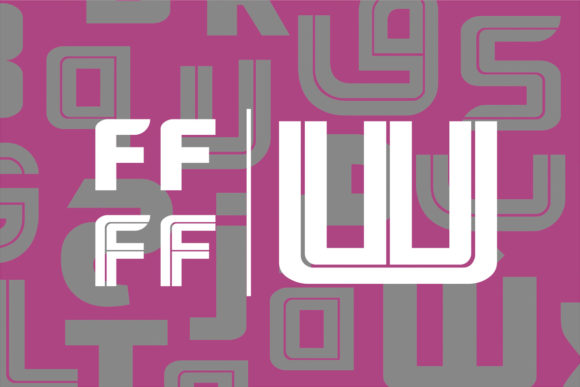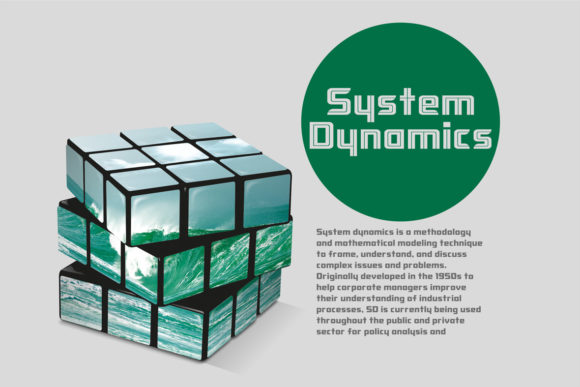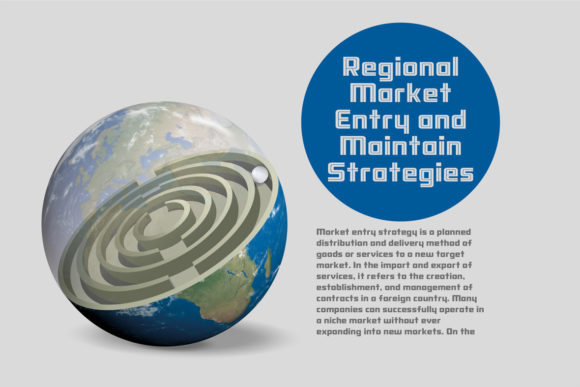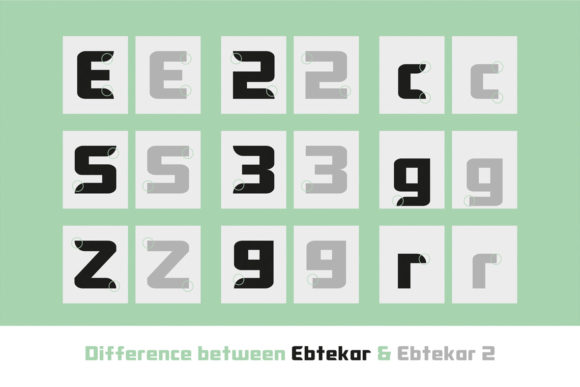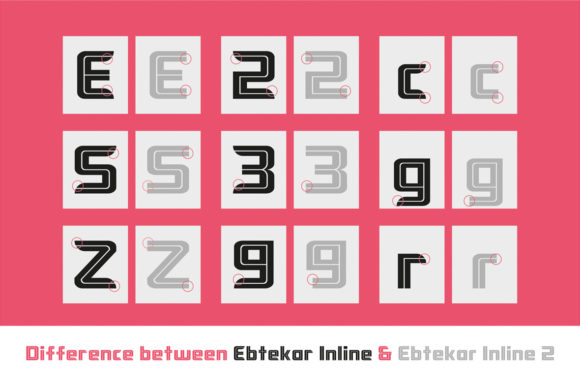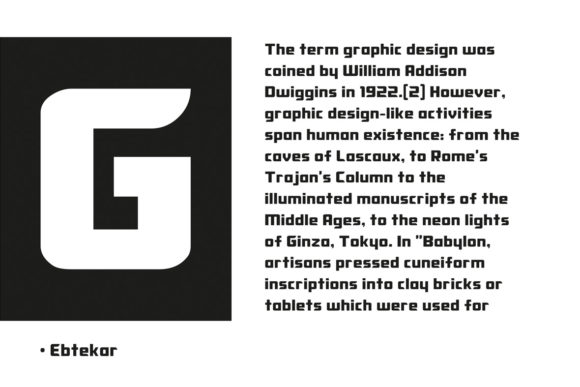
Introducing Ebtekar Family Font: A Stylish and Clean Display Font
Are you looking for a font that can add a touch of modernity and sophistication to your design projects? Look no further than the Ebtekar Family Font. This stylish and clean display font family is perfect for designers and crafters who want to create visually stunning text-based designs. In this article, we’ll take a closer look at the Ebtekar Family Font, its features, and how it can elevate your design game.
What is Ebtekar Family Font?
Ebtekar is a really stylish and clean display font family that boasts geometric structures, creating a minimal, futuristic, and industrial atmosphere. The font family consists of two different styles: Normal and Inline, giving you flexibility and versatility in your design projects. The Latin part of the font also offers two different types for each style, with some practical changes that make it even more useful.
Key Features of Ebtekar Family Font
- Geometric Structures: The Ebtekar Family Font features geometric structures that give it a modern and industrial look. The clean lines and minimalist approach make it perfect for designs that require a sleek and sophisticated touch.
- Two Styles: The font family comes in two different styles: Normal and Inline. The Normal style is perfect for headings and titles, while the Inline style adds a touch of elegance and sophistication to your designs.
- Latin Part: The Latin part of the font offers two different types for each style, with some practical changes that make it even more useful. This feature makes it easy to use the font for a variety of design projects.
- Clean and Minimal: The Ebtekar Family Font is designed to be clean and minimal, making it perfect for designs that require a simple yet effective font.
Who Can Benefit from Ebtekar Family Font?
The Ebtekar Family Font is perfect for designers and crafters who want to create visually stunning text-based designs. Here are some professionals who can benefit from this font:
- Graphic Designers: Graphic designers can use the Ebtekar Family Font to create stunning logos, brochures, and business cards.
- UI/UX Designers: UI/UX designers can use the font to create modern and sleek user interfaces that are both functional and visually appealing.
- Digital Artists: Digital artists can use the Ebtekar Family Font to add a touch of modernity and sophistication to their artwork.
- Crafters: Crafters can use the font to create beautiful and unique designs for their handmade products.
How to Use Ebtekar Family Font?
Using the Ebtekar Family Font is easy. Here are some tips to get you started:
- Choose the Right Style: Choose the right style for your design project. The Normal style is perfect for headings and titles, while the Inline style adds a touch of elegance and sophistication.
- Pair it with Other Fonts: Pair the Ebtekar Family Font with other fonts to create a unique and visually appealing design.
The Ebtekar Family Font is a stylish and clean display font family that is perfect for designers and crafters who want to create visually stunning text-based designs. With its geometric structures, minimal approach, and industrial atmosphere, this font is sure to elevate your design game. Whether you’re a graphic designer, UI/UX designer, digital artist, or crafter, the Ebtekar Family Font is a must-have in your font collection.